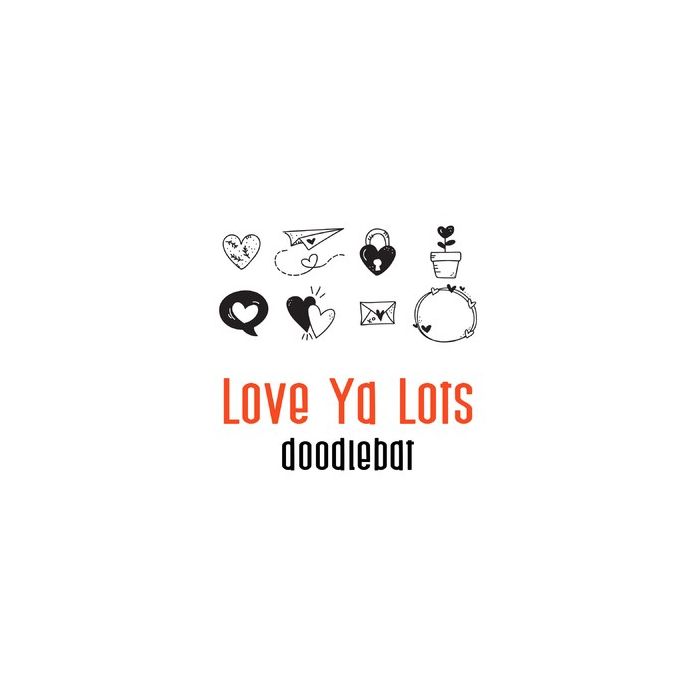
This fun doodlebat font features 26 love and heart doodle style images. Perfect for cards, gifts, decor, crafts, scrap book pages, planner stickers and more!